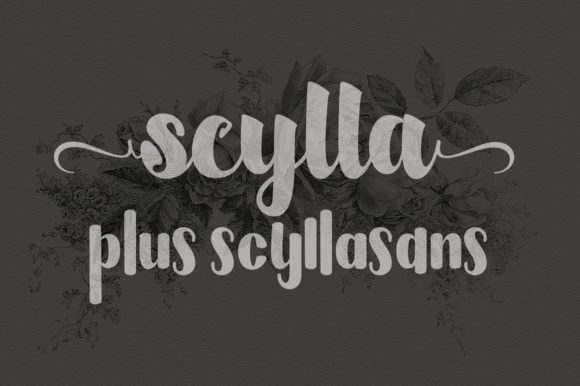
Unleash the power of expression with Scylla, a remarkable script font that will ignite your creative soul. Scylla's bold, sweeping strokes dance across the page, captivating your audience with every word. Its elegant curves and striking presence make it a font that demands attention, leaving an unforgettable impression.
Dive into the depths of Scylla's versatility, where boundless possibilities await. With its flexible characters, this font effortlessly adapts to any design vision, lending a touch of sophistication to wedding invitations, branding projects, and social media graphics. Whether you seek a classic, timeless look or a contemporary, edgy vibe, Scylla seamlessly transforms your words into works of art.
Experience the craftsmanship of Artisans, the font foundry behind Scylla. Their meticulous attention to detail and passion for typography shine through in every curve and stroke, resulting in a font that is both visually stunning and highly functional. Scylla performs flawlessly across a wide range of applications, ensuring that your message is conveyed with clarity and impact.
Indulge in the beauty and power of Scylla, a font that ignites your imagination and elevates your designs to new heights. Its bold, confident characters command attention, while its inherent grace adds a touch of elegance to every project. Embrace Scylla and unlock the full potential of your creative expression.